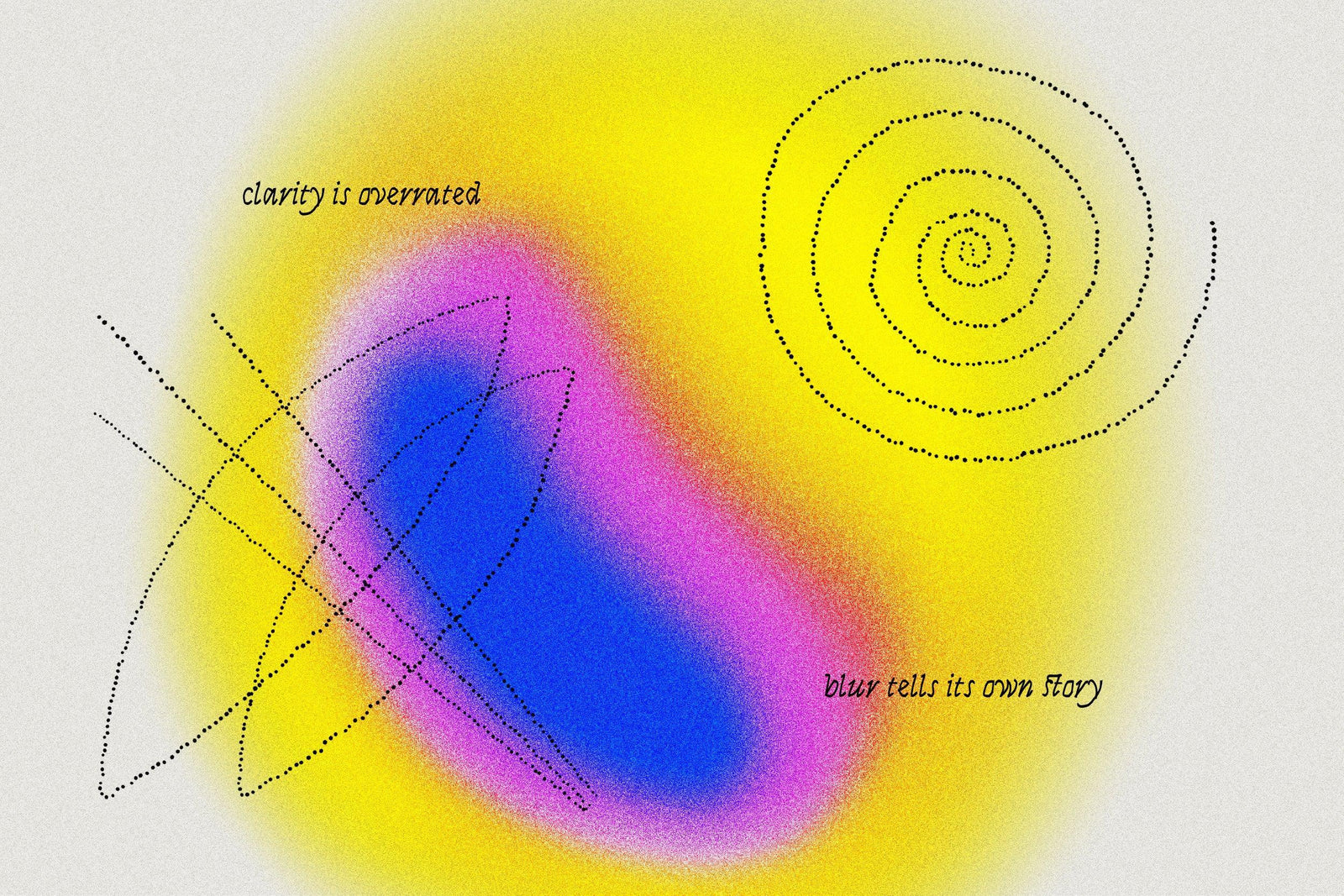
Weekly Drops #14 – Fonts, Textures, Atmospheric Graphics
New week, new weirdness. A mixed bag of fonts that flirt with the past, textures that look like they misread a manual, and atmospheric graphics ideal for…
New week, new weirdness. A mixed bag of fonts that flirt with the past, textures that look like they misread a manual, and atmospheric graphics ideal for late-night moodboarding. Hand-picked for anyone who likes projects with personality quirks. Browse the assortment, or dive deeper into our New Releases and Staff Picks.
SPARSE UNIVERSE Abstract Elements by angelainthefields
SPARSE UNIVERSE Abstract Elements
Feels like the edges of a dream someone carefully scanned. Sparse Universe is chapter three of Diffused Worlds: a toolkit of abstract forms, blurred gradients and dotted constellations that dissolve edges. Includes layered assets primed for collage work and atmospheric backgrounds. Ideal for editorial spreads, posters and experimental UI. Formats and exact file types are included in the pack for easy use across projects.
Pavilion Serif Typeface by God Control
Pavilion Serif Typeface
The serif that sashays between classic and contemporary. Pavilion marries refined strokes with modern edges for a poised, adaptable voice. Designed on purpose to balance tradition and flow, it’s built for headlines, brands and luxe editorial layouts. The package contains thoughtfully crafted glyphs and weights to mix refinement with personality. Works brilliantly when paired with bold visuals or minimalist layouts to add instant class.
DREAM MATTER Atmospheric Elements by angelainthefields
DREAM MATTER Atmospheric Elements
Like colours quietly humming at the back of your eye. Dream Matter offers blurred, retro-inspired elements where shapes dissolve and edges sing. Great for posters, album art and nostalgic UI moments that need an afterimage glow. The set includes layered elements ready for compositing and experimental layouts, making it simple to create otherworldly depth without wrestling layers into submission.
Also Sans by Marvadesign
Also Sans
Straight, sharp and secretly playful. Also Sans brings geometric precision with a contemporary vibe across 18 styles, including italics, so you can go subtle or shouty without swapping families. Ideal for responsive UI, branding systems and long-form when you want clarity with character. Comes as a complete family that scales from micro copy to giant headlines, keeping proportions clean at any size.
REVERSE PRINT TEXTURE PACK by Textexp
REVERSE PRINT TEXTURE PACK
Like discovering the secret underside of printed paper. Reverse Print is all about deep, repeat-print textures that reveal themselves after multiple runs. The pack captures that rich, tactile grain on the reverse side of sheets—perfect for vintage-fake posters, packaging mockups and textured backgrounds. Includes high-quality scans and repeatable tiles so you can layer authentic paper grit over any composition.
Clarton by Marvadesign
Clarton
Elegant with a hint of theatrical flourish. Clarton is a modern serif featuring high contrast strokes, graceful curves and contemporary refinement. Built to sit proudly in editorial spreads, luxury branding and packaging that wants to whisper polish. Comes with a full set of stylistic details and carefully constructed letterforms that pair beautifully with sans companions for modern, upscale layouts.
Machine Chain by Afterimagine
Machine Chain
Chunky, industrial and oddly romantic. Machine Chain supplies 50 high-resolution chain elements in two textures: gold and silver. Perfect for brutalist posters, product comps or any design that wants a metallic bite. Elements are isolated for quick placement, letting you build dense or minimalist chains without fuss. Use them to add weight, pattern or a hint of mechanical glamour to compositions.
Molen Dream by Marvadesign
Molen Dream
Feels like a cassette cover from a happier timeline. Molen Dream is a bold, retro display with smooth rounded edges and exaggerated curves that make words grin. Excellent for playful logos, posters and packaging that need instant personality. The family includes display-ready weights and alternates to toy with rhythm in headlines. Designed to be loud yet friendly, and impossible to ignore.
Halftone Effects Creator by Pixelbuddha
Halftone Effects Creator
A toolkit that turns anything into comic-book grit. Halftone Effects Creator includes PSD files preloaded with layered structures to craft authentic pixelated textures and vintage dot screens. Use it to add manga grit, gritty posters or moody editorial accents. Works great for print and web—drop your art in, toggle layers, and watch scenes go from clean to deliciously weathered in seconds.